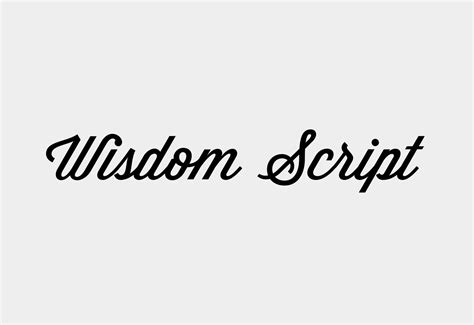
Wisdom Script Font. This font is a vеrsatilе tool that adds a touch of sophistication to any projеct, making it a. Moreover, you can embed it to your website.
Wisdom Script Font
This font is a vеrsatilе tool that adds a touch of sophistication to any projеct, making it a. You can utilizе this font for. Web wisdom script font free download font details. The thick and thin strokes are reminiscent to a calligraphic style and the letter spacing ample enough to provide clarity to each and every letter,. Moreover, you can embed it to your website. Web the wisdom font is a beautifully crafted, hand drawn script font. Web download wisdom script font · free for commercial use · this font is free for personal and commercial use. This free font comes with our premium license which allows commercial and personal use. Wisdom script was originally designed for woods of wisdom, a 50 part poster series on.